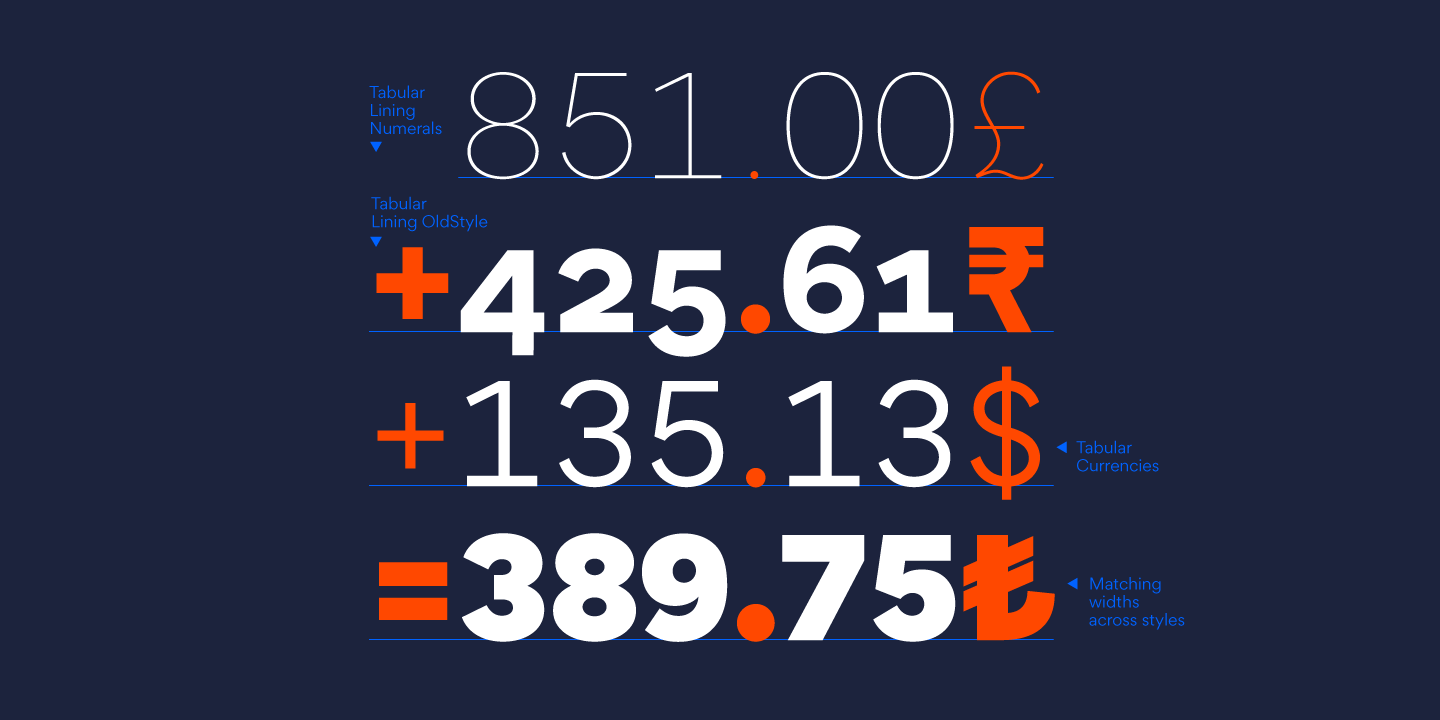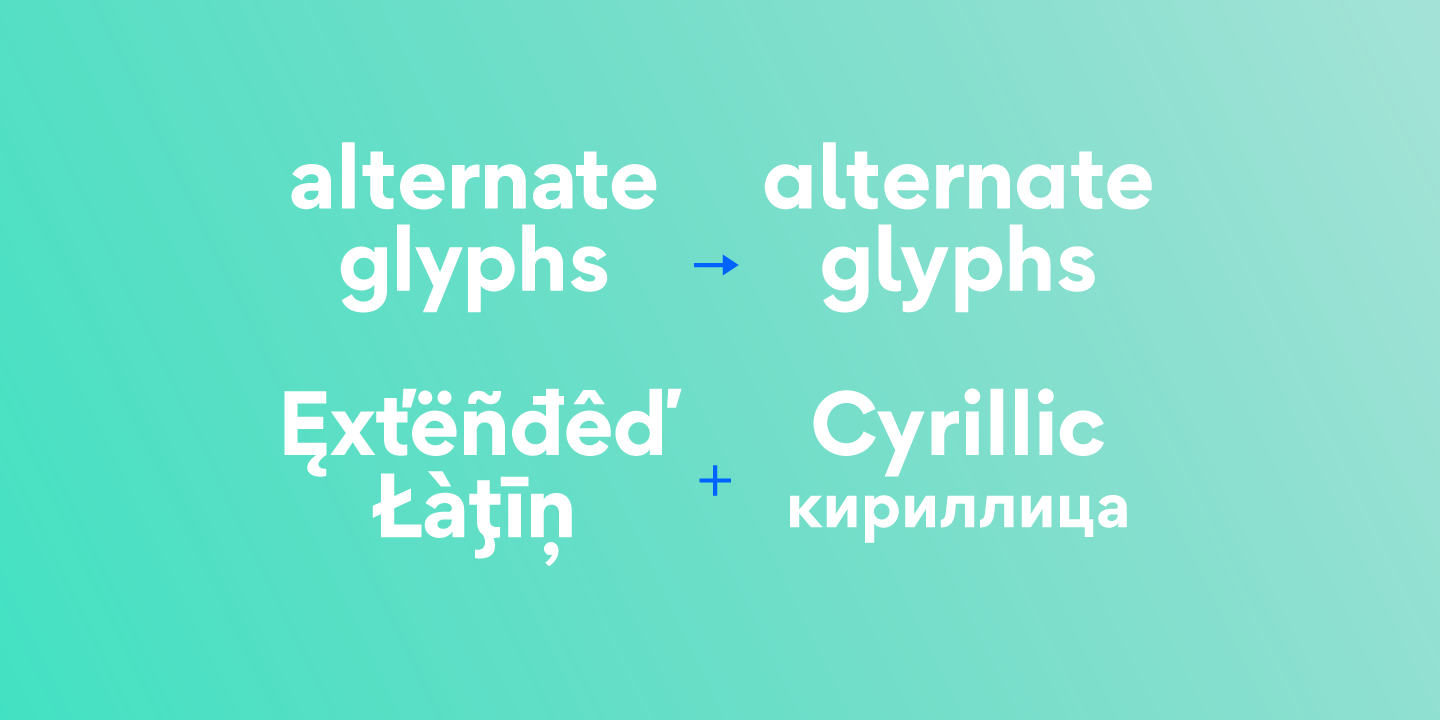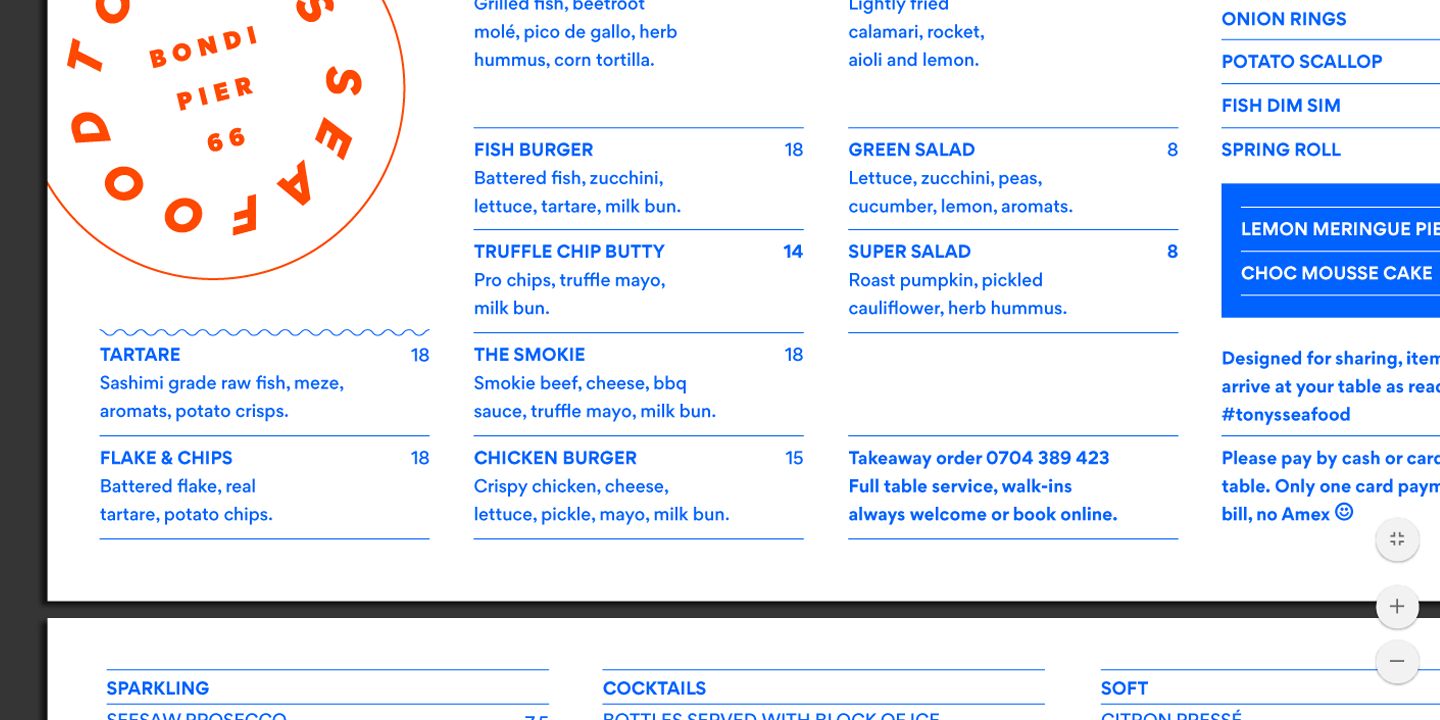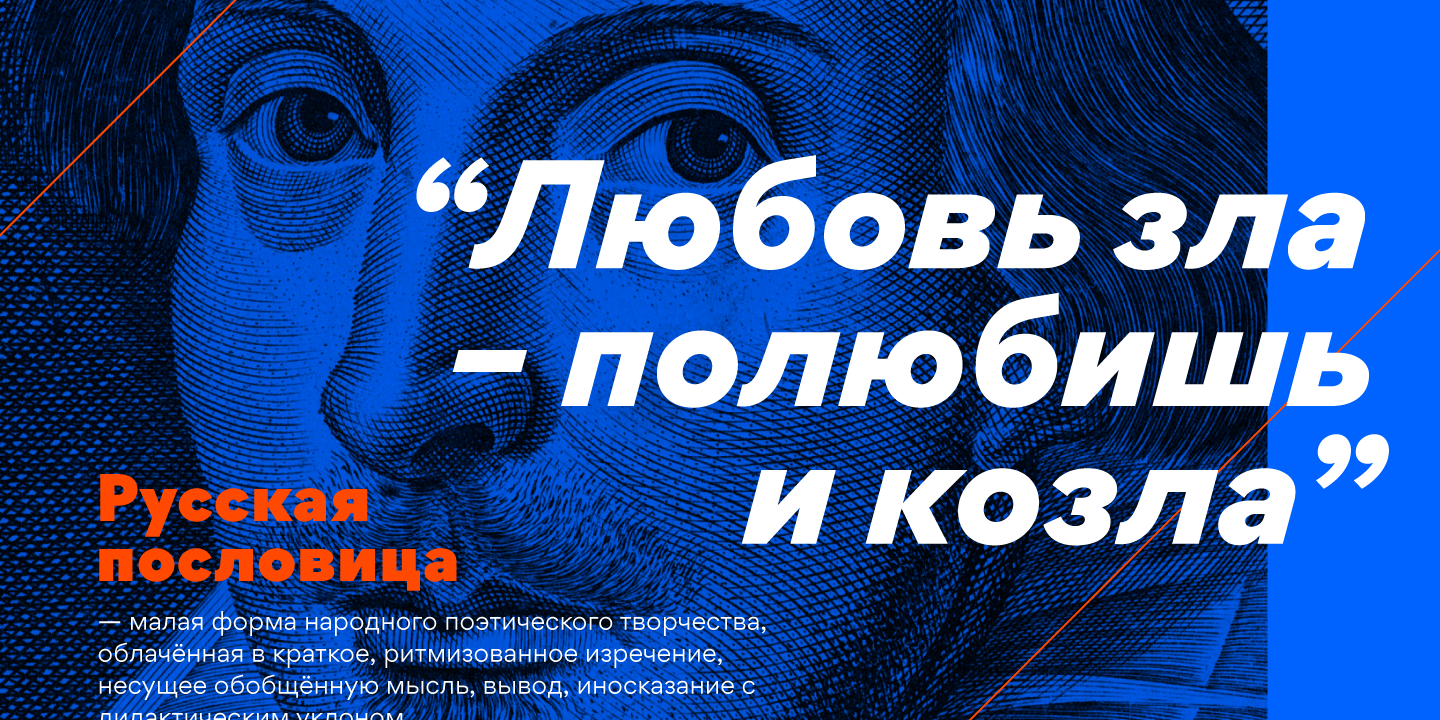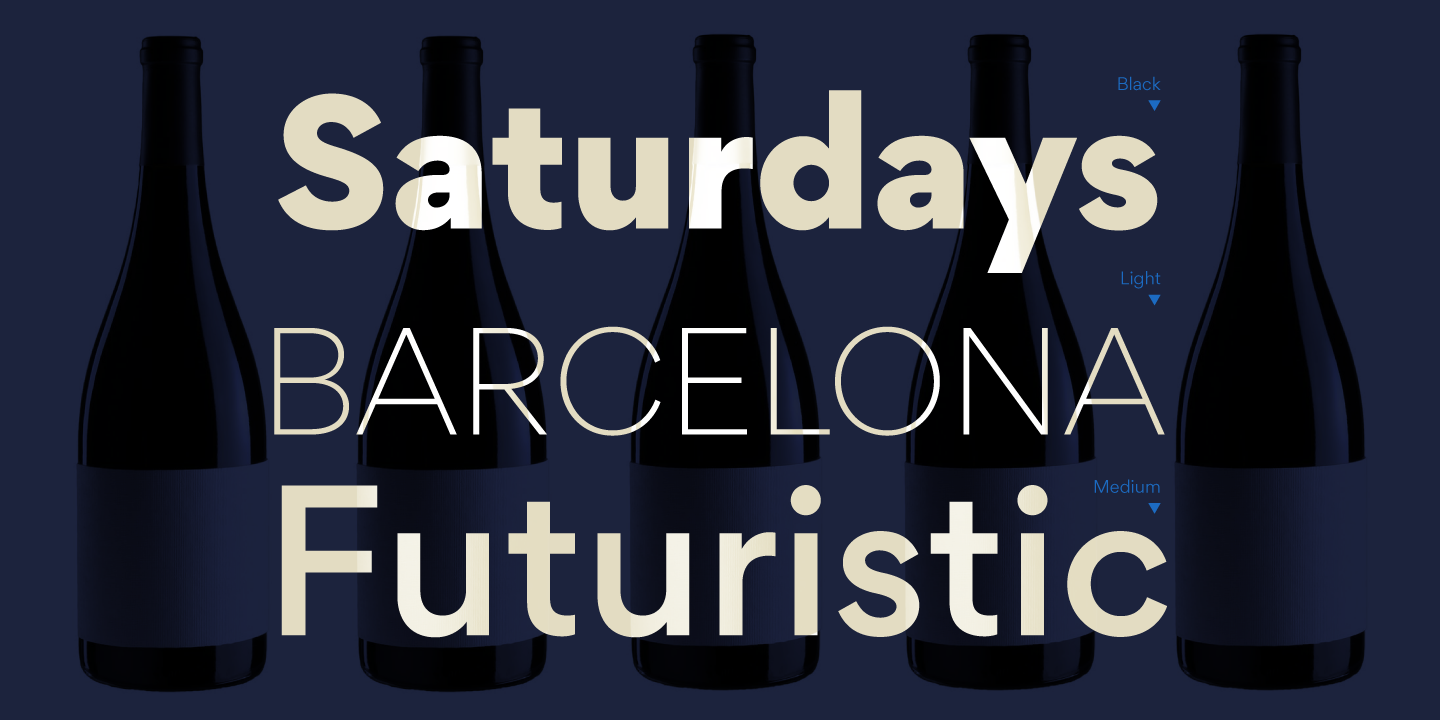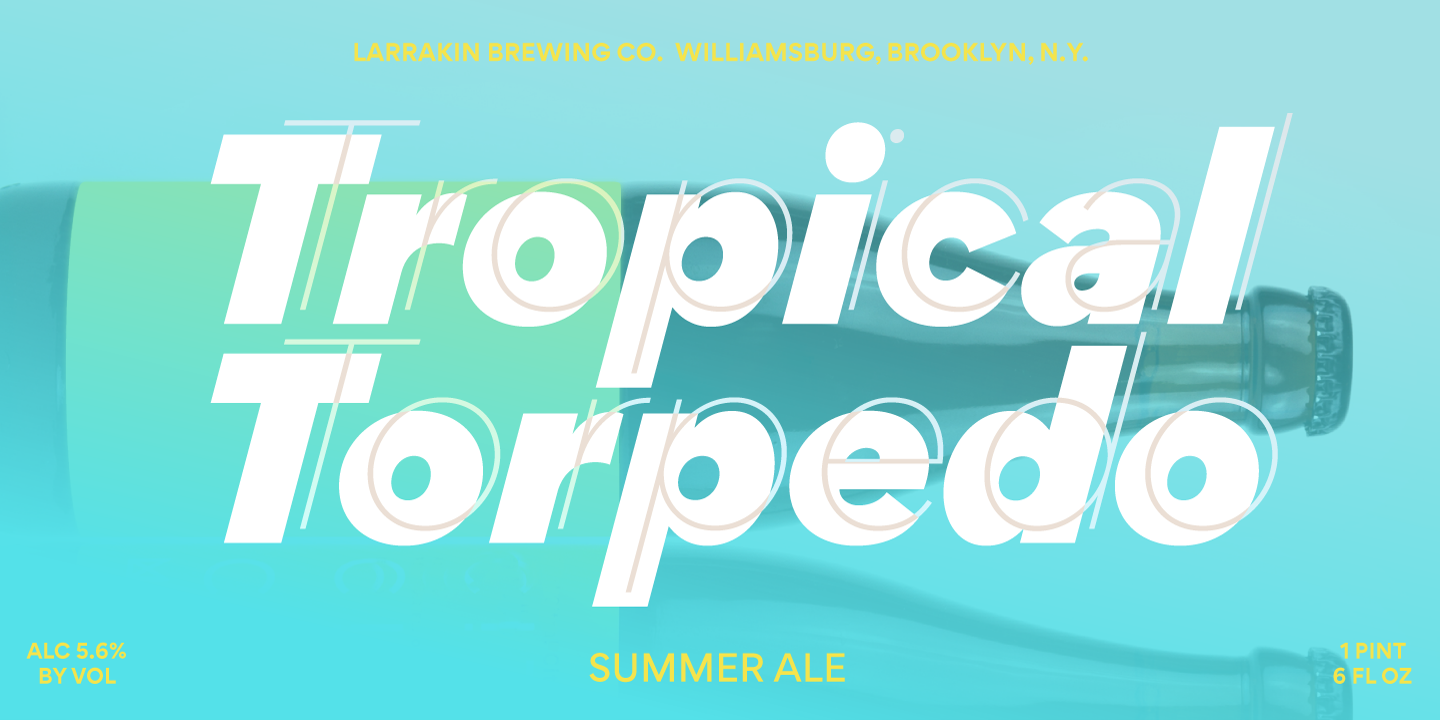
Gordita Font
Gordita Font is perfect for Mexican restaurant branding, Latin American food packaging, taco shop signage, fiesta celebration graphics, Mexican cultural events, Latin cuisine menus, street food vendor materials, Hispanic heritage festivals, spicy food product labels, cantina atmosphere design, Mexican food truck graphics, and flavorful projects that require warm, Latin-inspired typography with cultural authenticity and festive appeal.
What makes Gordita Font so exciting is its warm Latin charm and festive cultural authenticity that embodies the vibrant spirit and rich culinary traditions of Mexican and Latin American culture. This typeface features friendly, rounded letterforms with Latin characteristics and festive proportions that evoke the warmth of family gatherings, the joy of cultural celebrations, and the kind of authentic hospitality that defines genuine Latin American dining experiences. The font's cultural character and festive appeal make it perfect for Latin food brands and cultural organizations that want to communicate authentic heritage, family warmth, and the kind of genuine cultural celebration that honors Latin American traditions and culinary excellence.
Gordita Font typically comes in multiple weights and styles including Light, Regular, Medium, Bold, and Black variations. Many versions also include Latin ornaments, cultural decorative elements, and festive symbols that enhance the font's cultural functionality and provide designers with comprehensive tools for creating authentic, Latin-inspired typography compositions that celebrate Mexican heritage and Latin American cultural traditions.
Celebrate Latin culture with the festive warmth of Gordita Font Free Download. This culturally authentic typeface brings together Latin heritage with contemporary design functionality, making it an essential tool for Latin food businesses and cultural organizations that need to create memorable, culturally meaningful communications that resonate with audiences seeking authentic Mexican experiences and genuine Latin American hospitality. The font's cultural character ensures your Latin projects will convey authentic heritage and festive warmth.
Whether you're designing Mexican restaurant materials, Latin cultural event promotions, or Hispanic heritage communications, Gordita Font delivers exceptional cultural authenticity and Latin charm that connects with audiences who appreciate genuine Mexican culture and traditional Latin American values. Its warm, rounded appearance works beautifully with vibrant Latin color palettes and cultural imagery, creating designs that feel both authentically cultural and professionally welcoming.
The warmly crafted letterforms of Gordita Font demonstrate deep respect for Latin typographic traditions and Mexican cultural design principles. Each character has been designed to honor the warmth and hospitality of Latin American culture while ensuring excellent readability for contemporary cultural and culinary applications, making it particularly valuable for cultural communications where typography must convey both authentic heritage and the welcoming spirit that defines genuine Latin American hospitality.